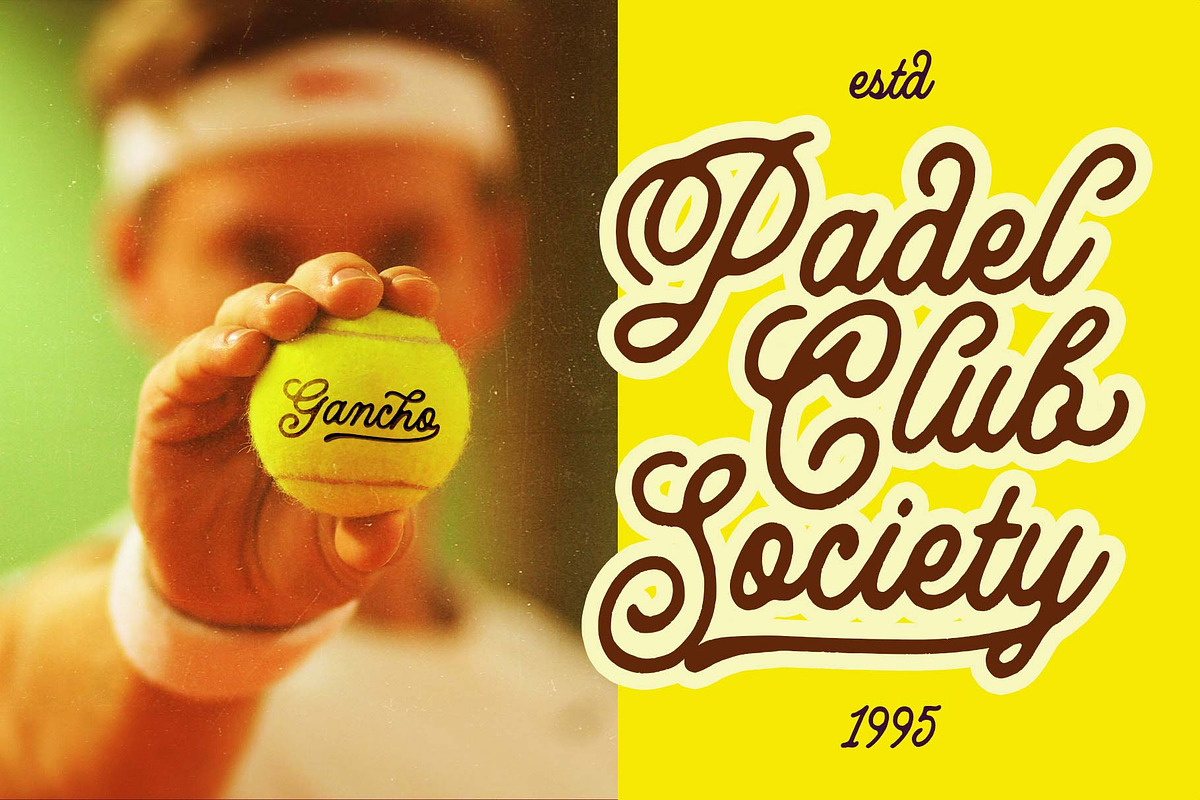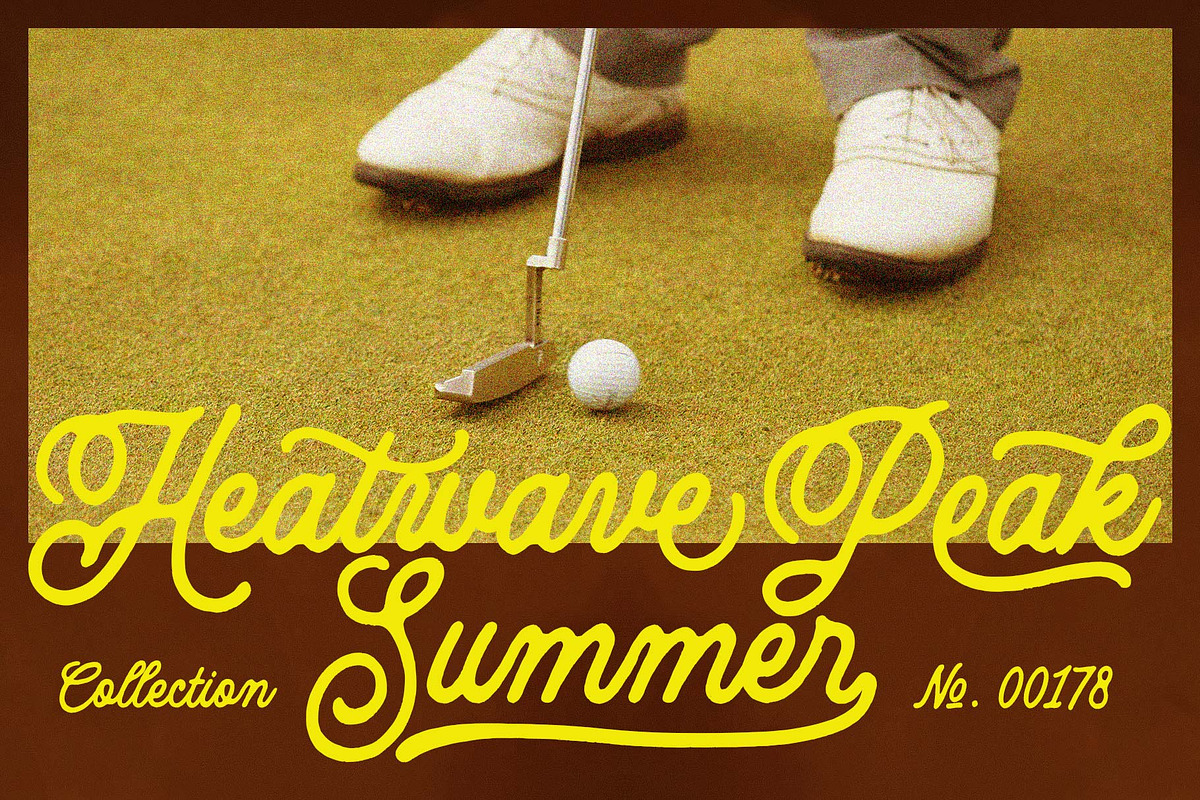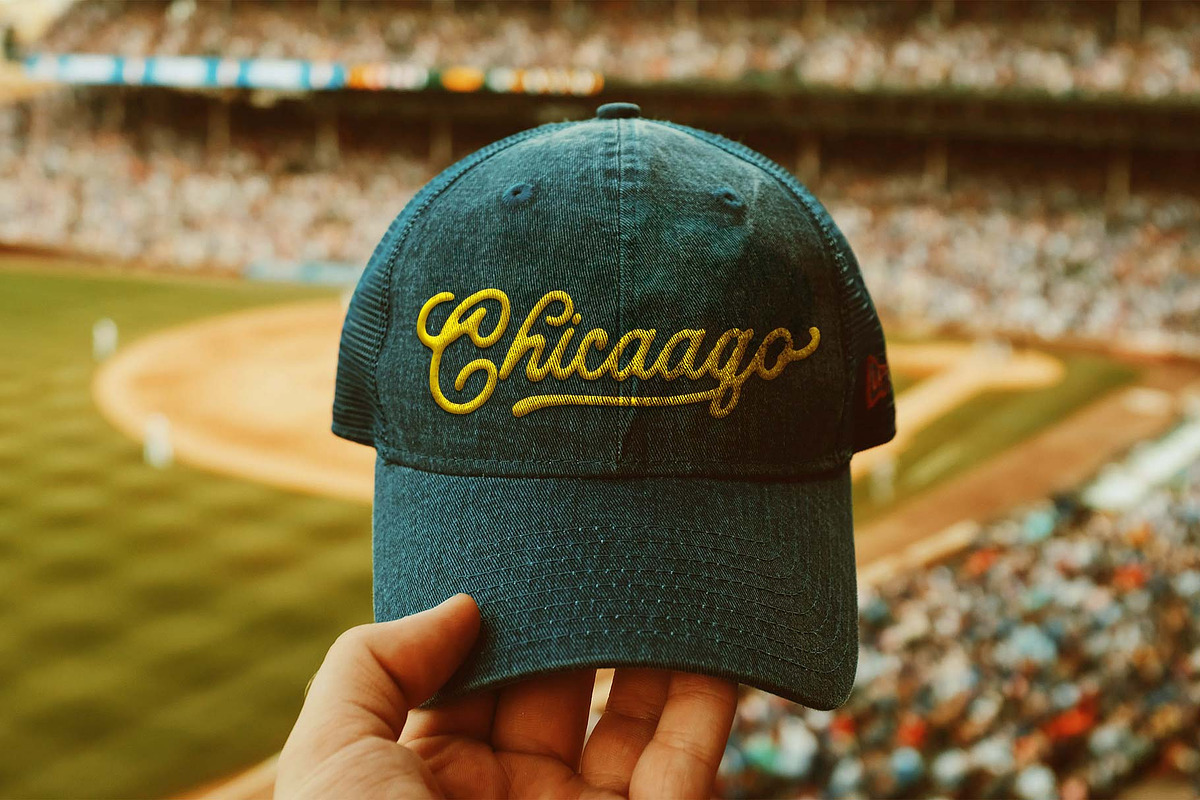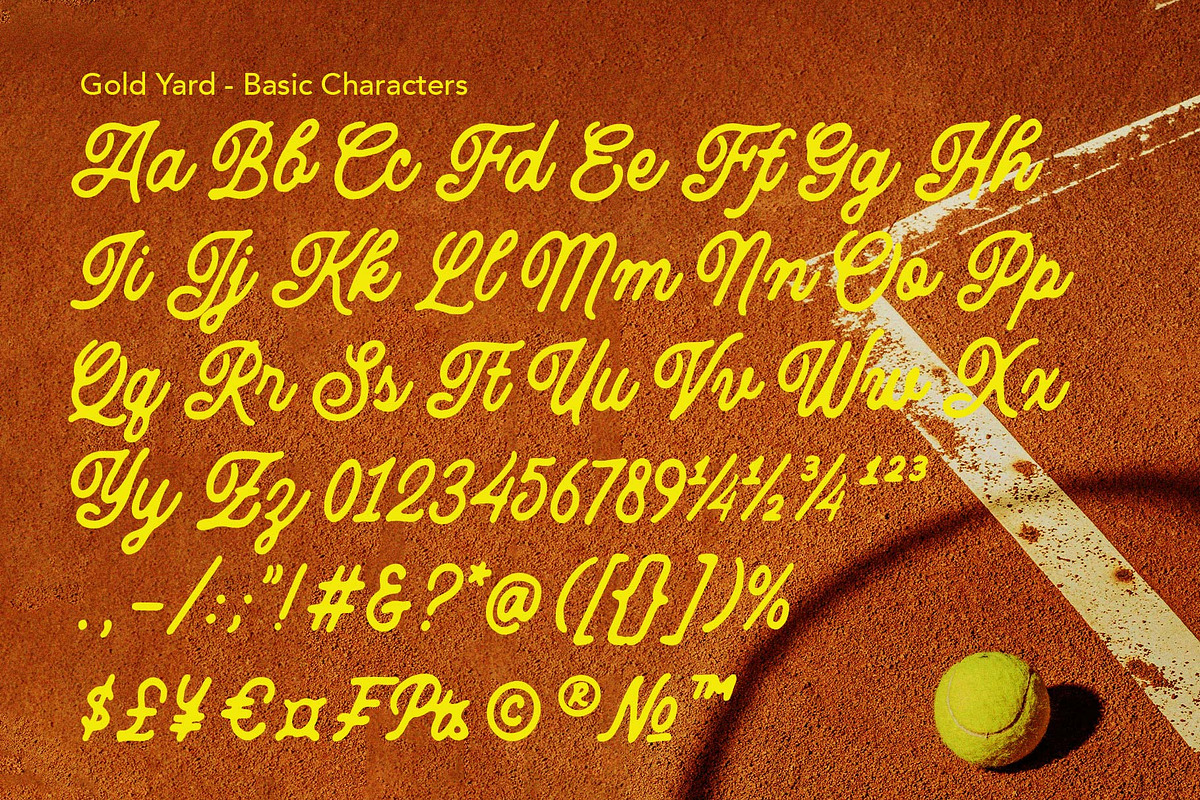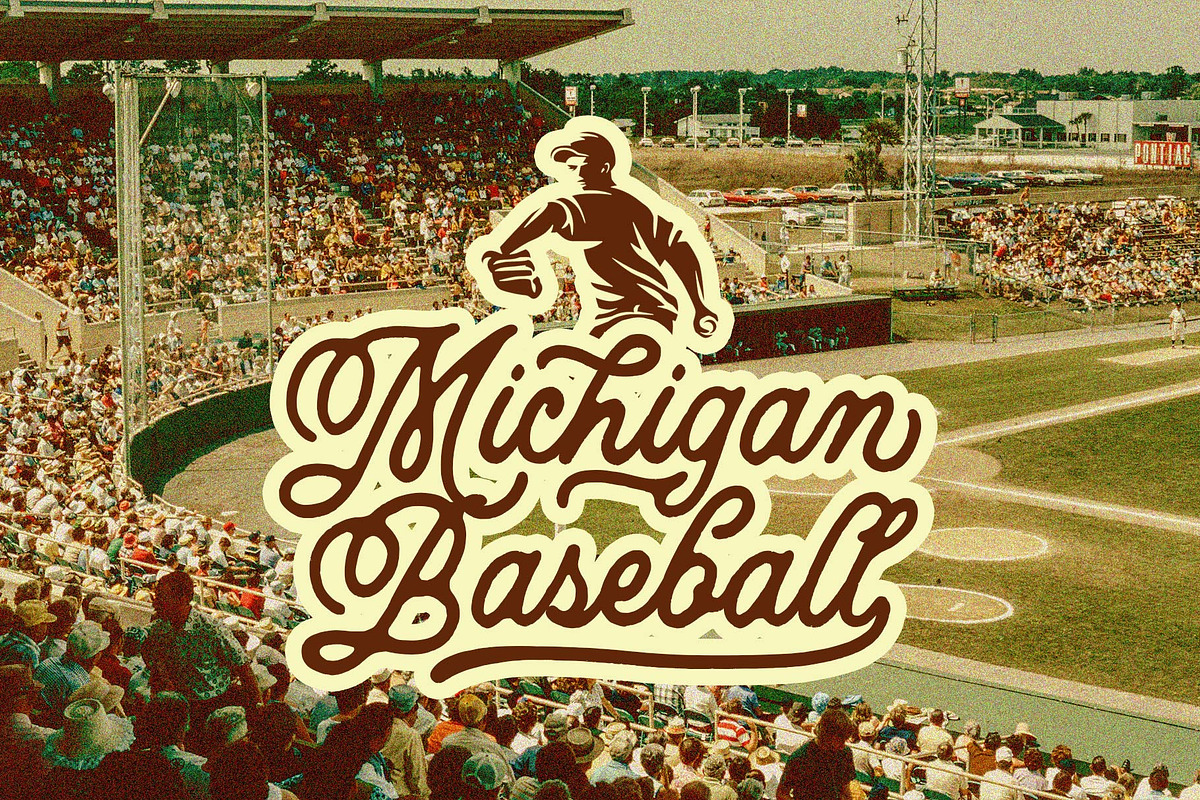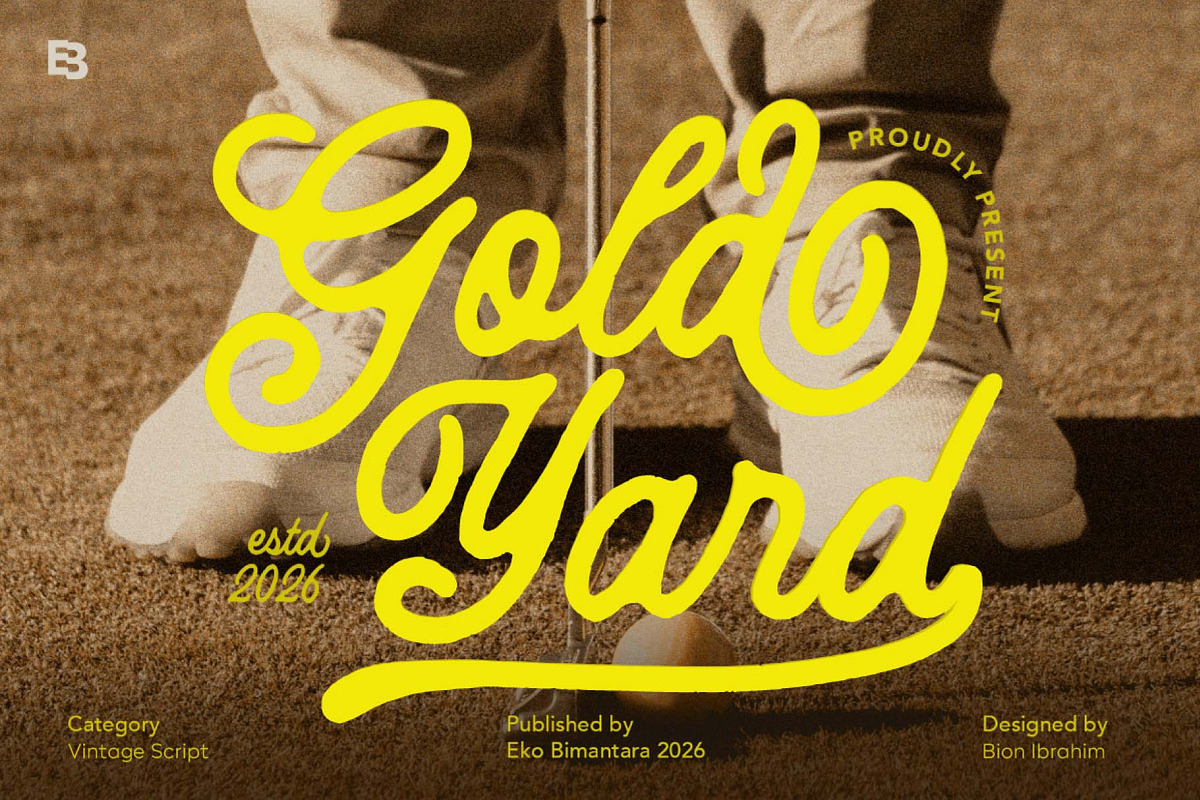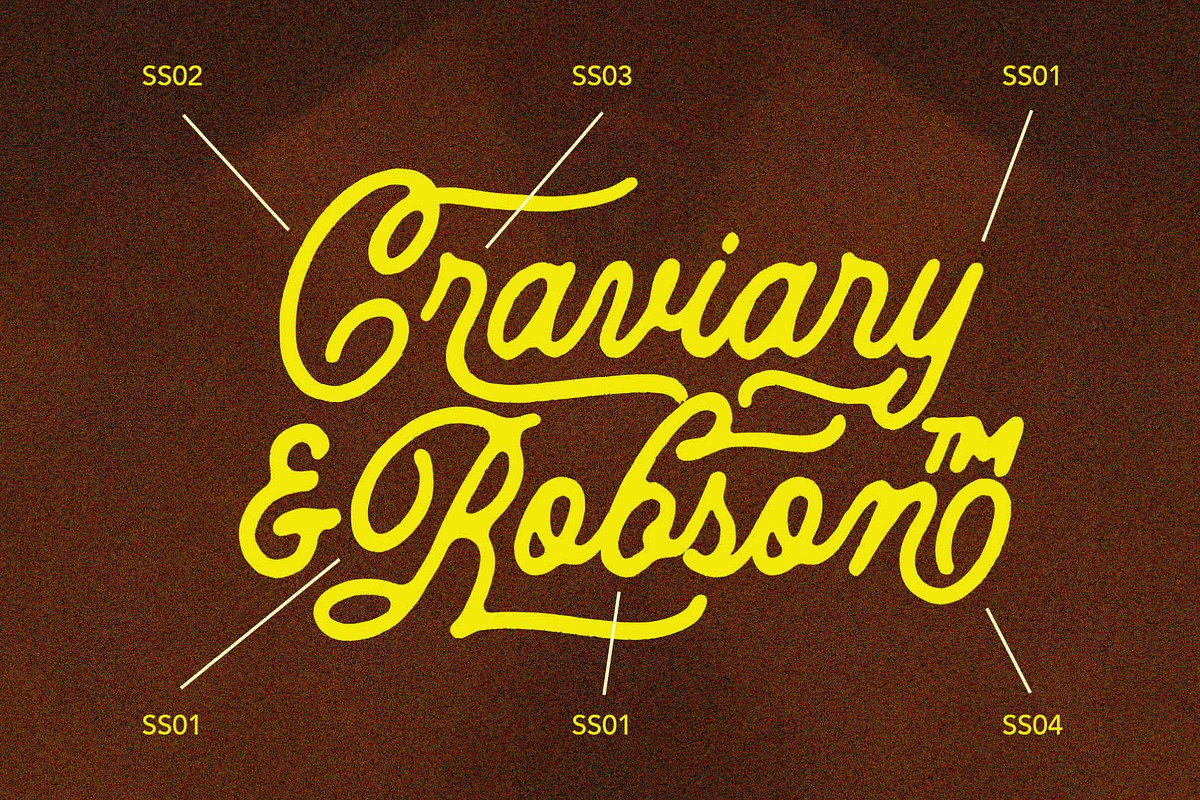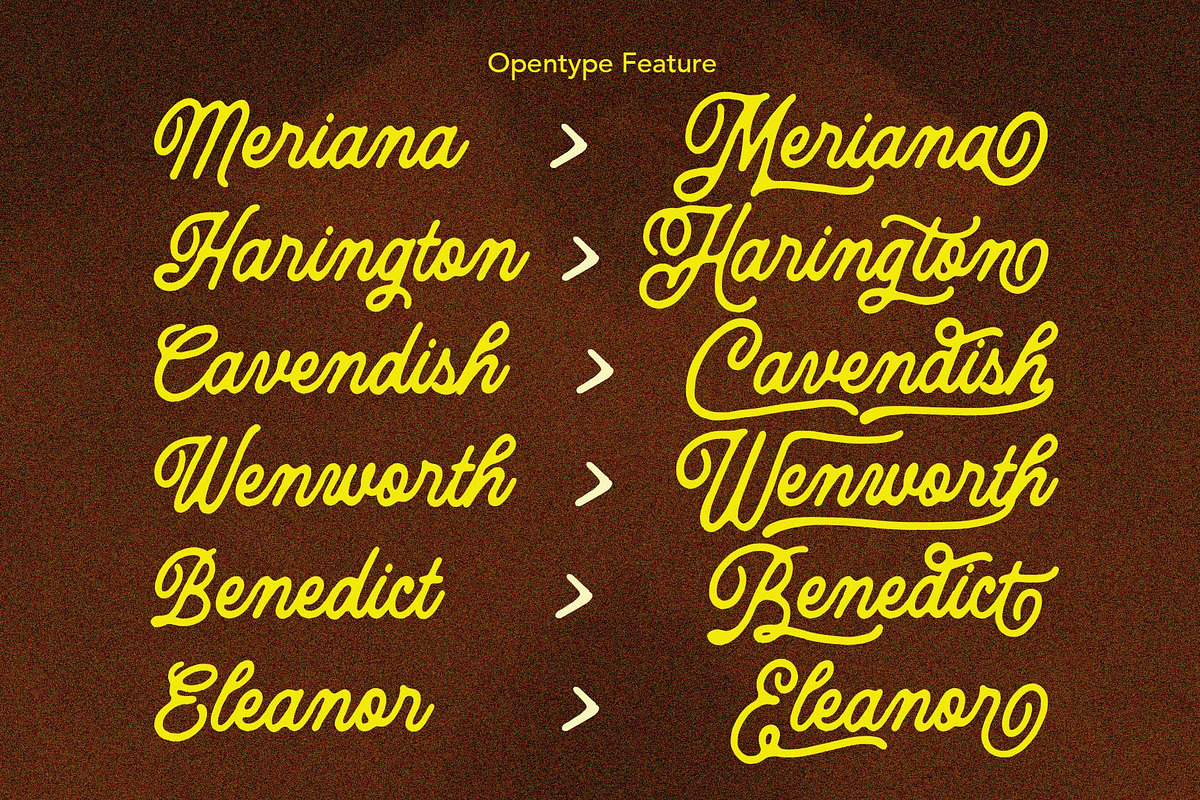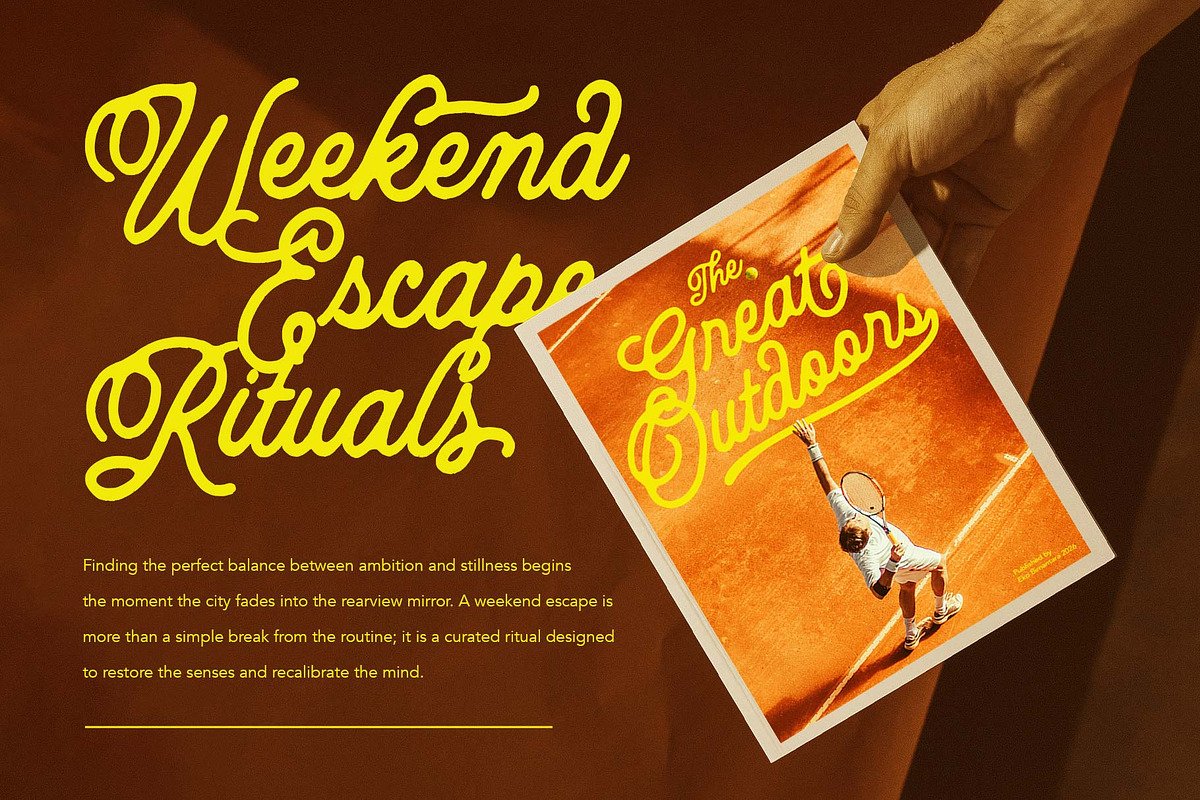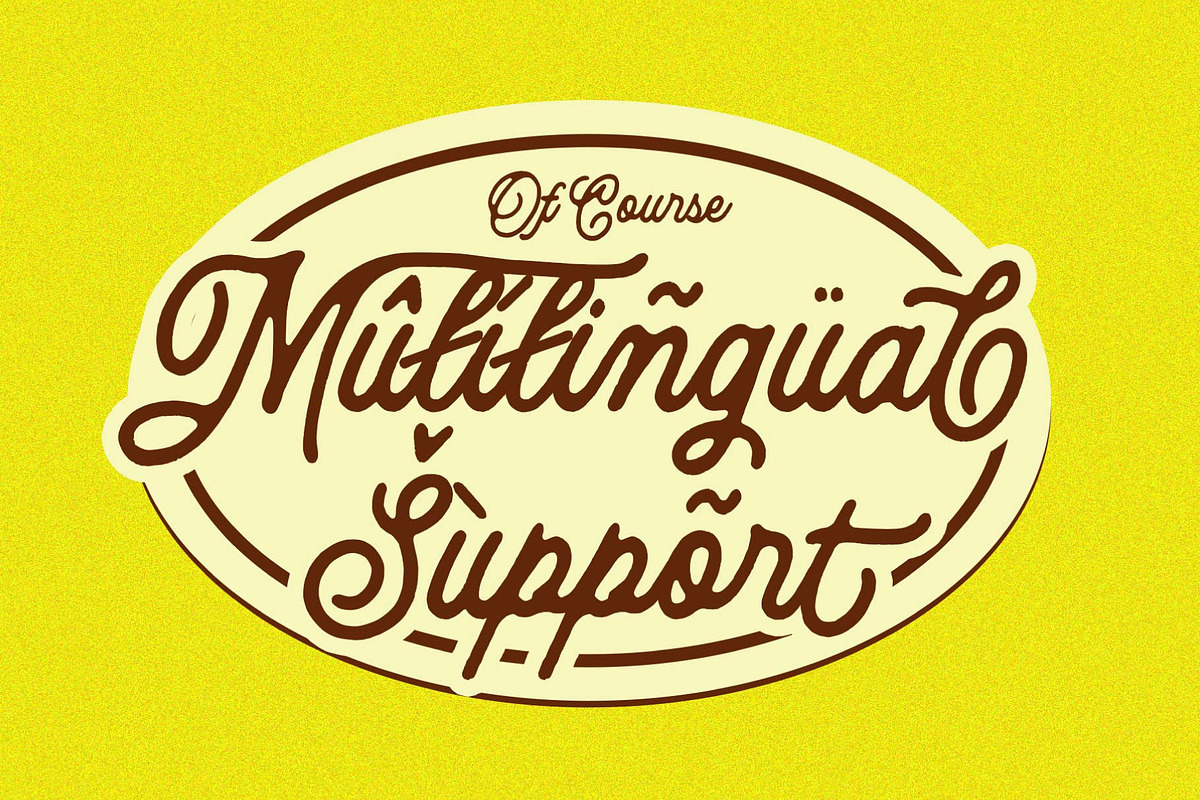
Gold Yard; Vintage Script
Gold Yard is a stylish vintage script font inspired by classic retro culture and timeless handcrafted lettering. Featuring smooth flowing strokes, bold curves, and beautifully balanced swashes, this typeface delivers a confident yet approachable character that feels both nostalgic and refined. Its distinctive letterforms make it ideal for sports branding, apparel, logos, packaging, signage, social media, and premium lifestyle designs seeking a touch of authentic vintage charm. Combining elegance, energy, and strong visual impact, Gold Yard captures the spirit of community, competition, and tradition, creating memorable designs that feel warm, dynamic, and effortlessly classic.